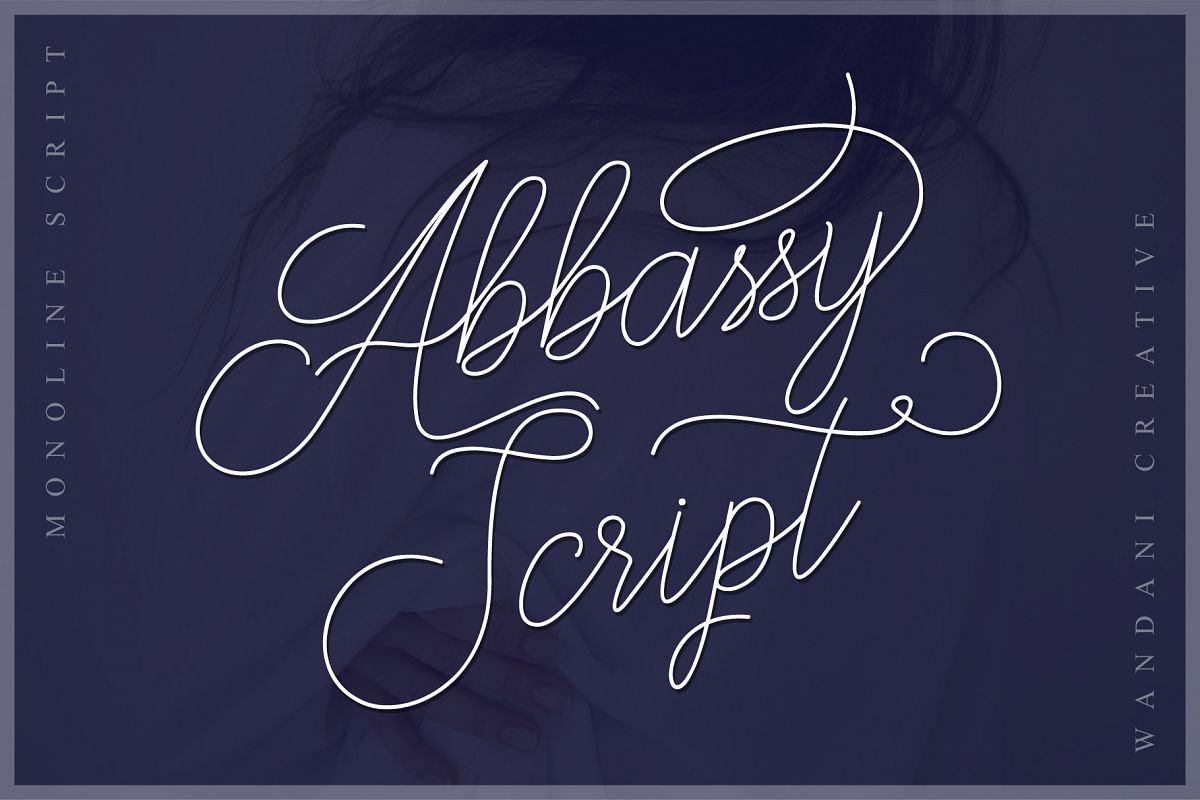
Abbassy Script // Monoline Font
Abbassy Script handmade font is for any typhography needed, designed to combine perfectly and allow you to create stunning hand-lettering quickly and easily. Ideal for logos, handwritten quotes, product packaging, header, poster, merchandise, social media & greeting cards, and more
The alternative characters were divided into several Open Type features such as Swash, Stylistic Sets, Stylistic Alternates, Ligature. The Open Type features can be accessed by using Open Type programs such as Adobe Illustrator, Adobe InDesign, Adobe Photoshop, Corel Draw X version, And Microsoft Word. And this Font has given PUA unicode (specially coded fonts). so that all the alternate characters can easily be accessed in full by a craftsman or designer.
MULTILINGUAL SUPPORT